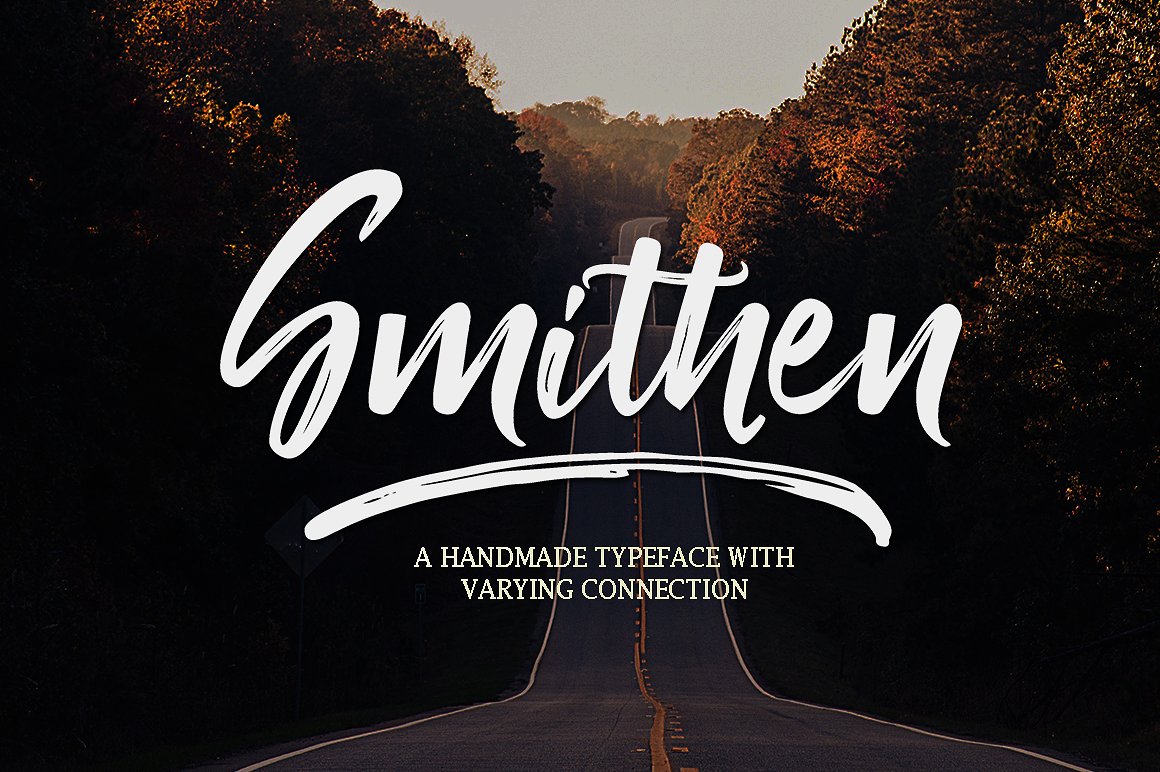
Smithen Script
Smithen Script Brush Font
Smithen is a hand brushed font created with a brush and ink, bold and irregular baseline. Contains a complete set of lowercase, uppercase, alternates, ligatures, punctuation, numbers, and multilingual support. And additional Smithen sans, working in harmony with Smithen script to create typography awesome creations. Get some inspiration from the preview above. Contains a complete set of lowercase, uppercase, ligatures, punctuation, numbers, and multilingual support.